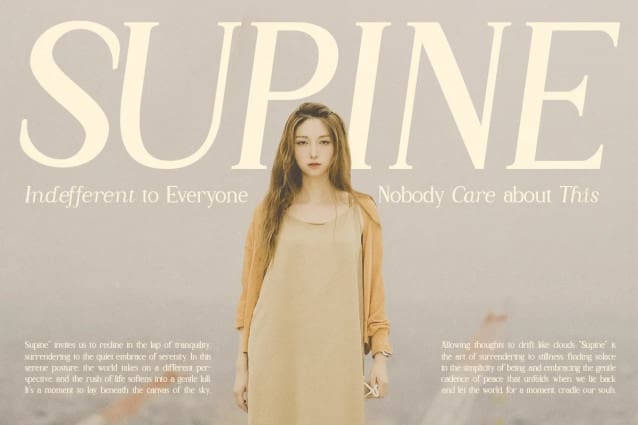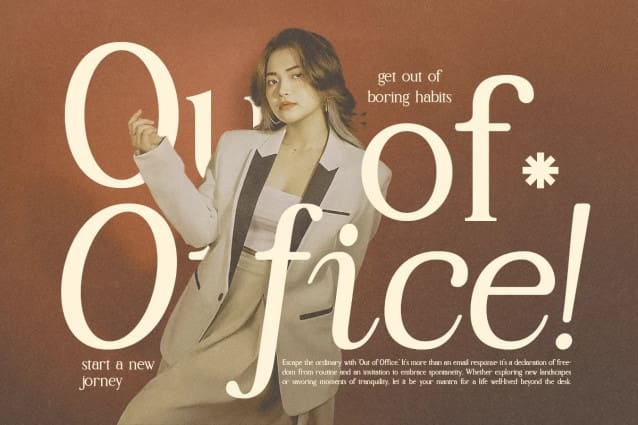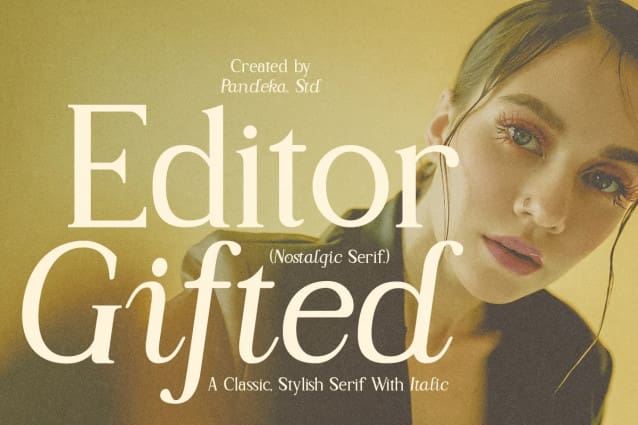
Editor Gifted Font
Editor Gifted Font – A classic nineties retro with a complementary italic version. In the italic family, we make it different from the regular and make a shape with a unique uppercase so it looks more classic, retro but a little modern